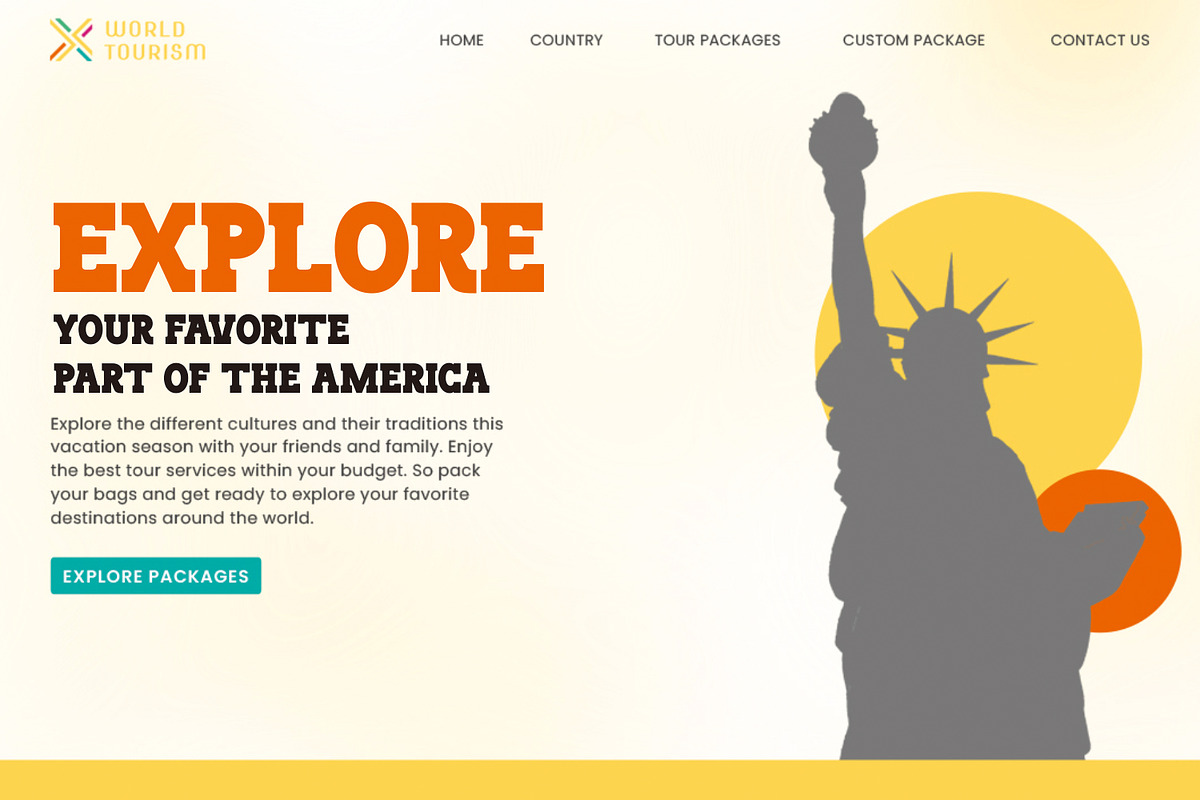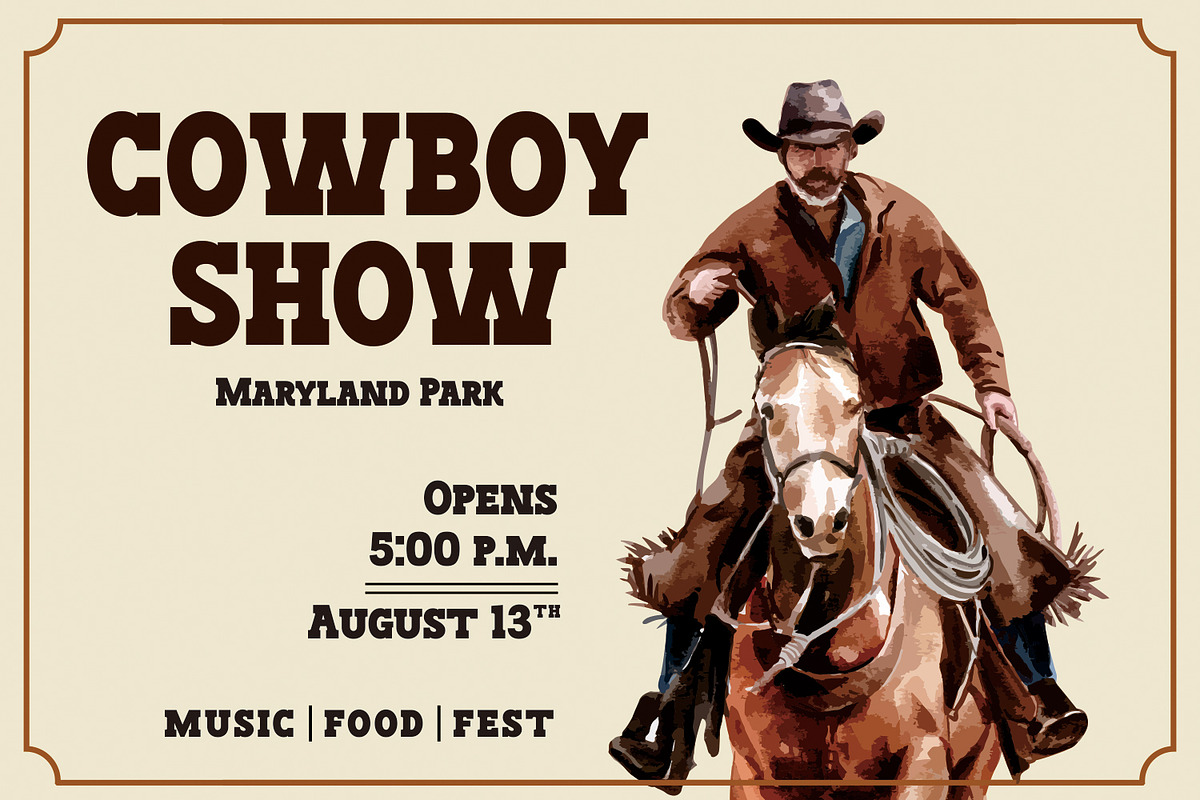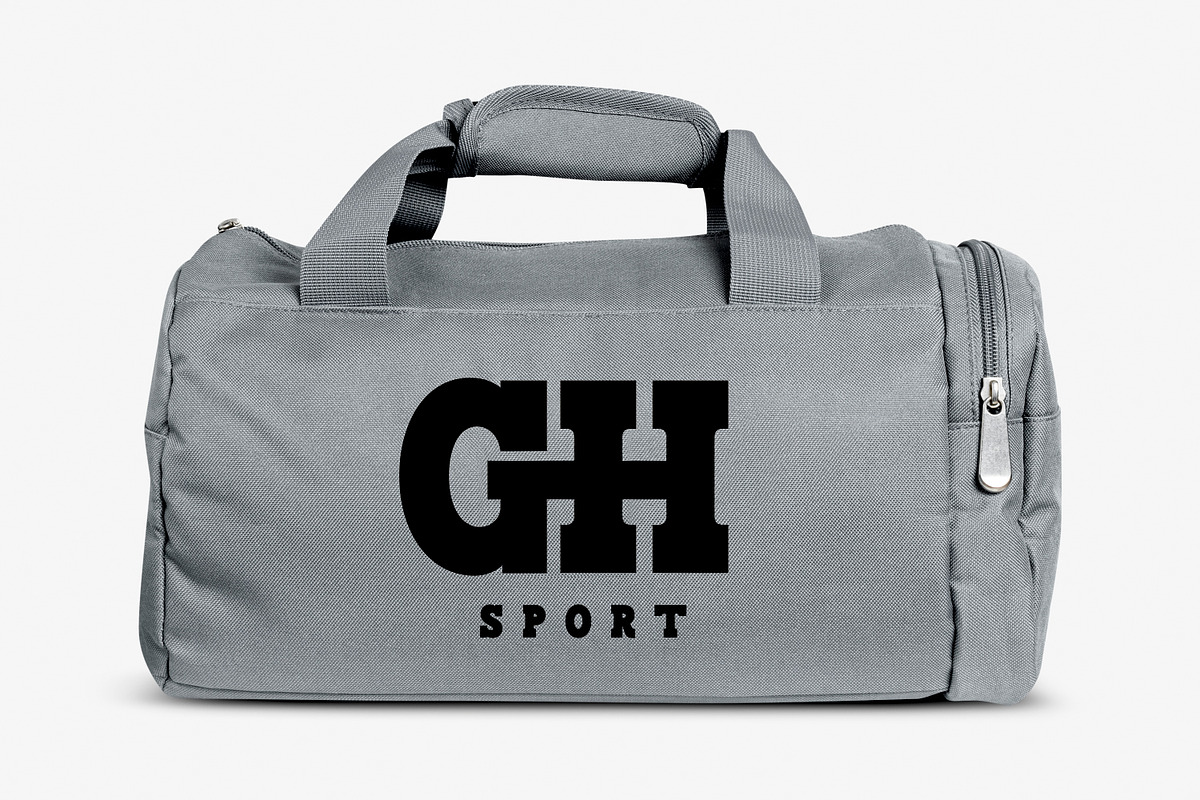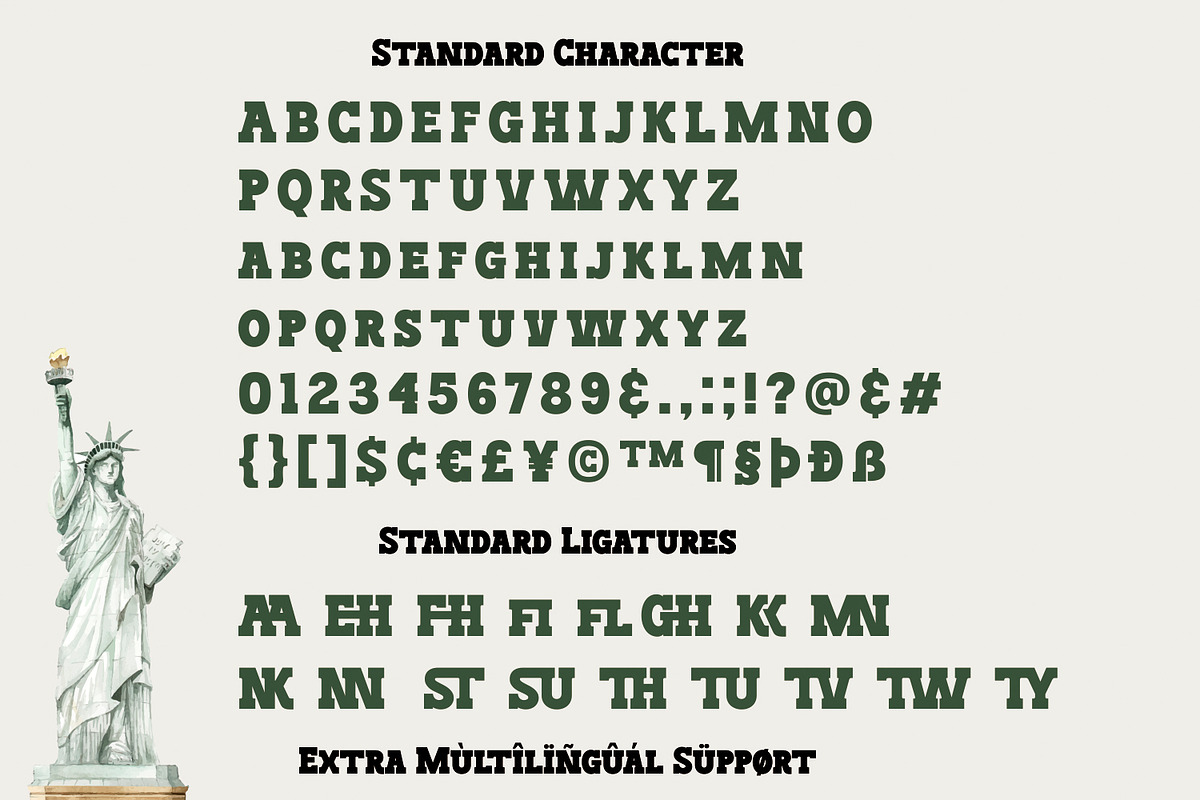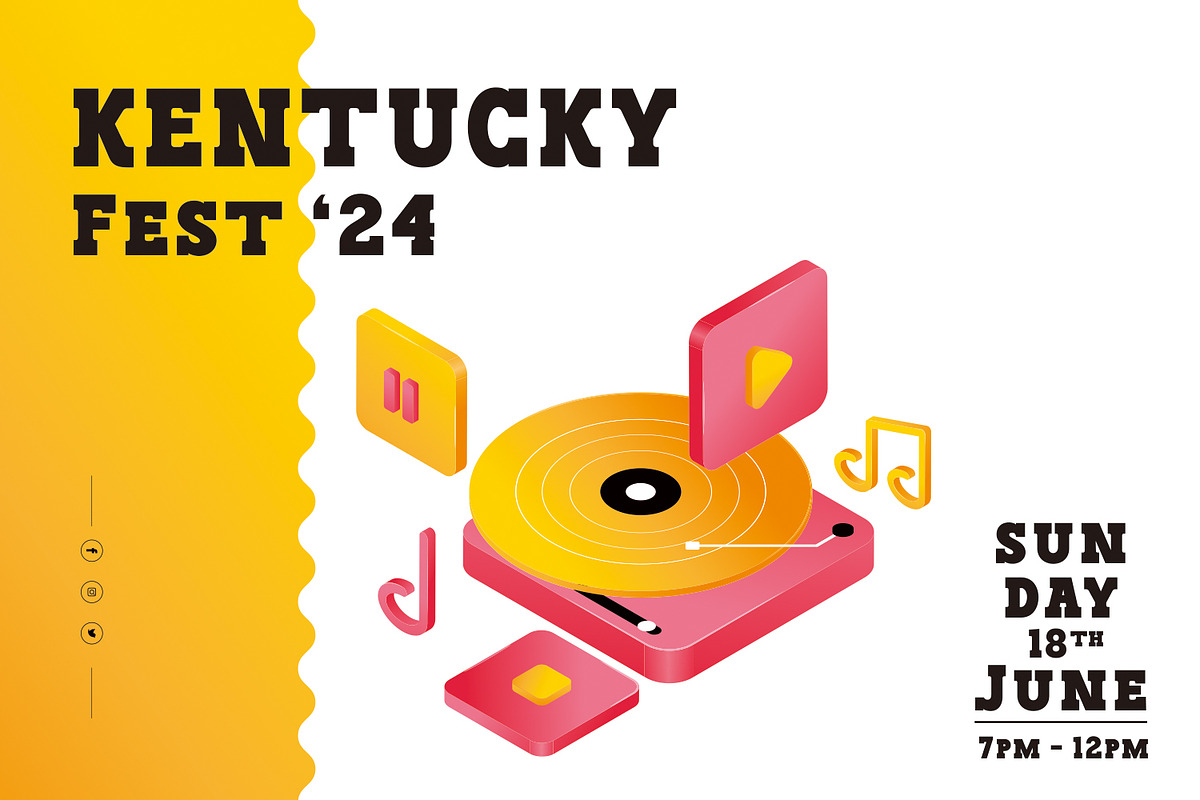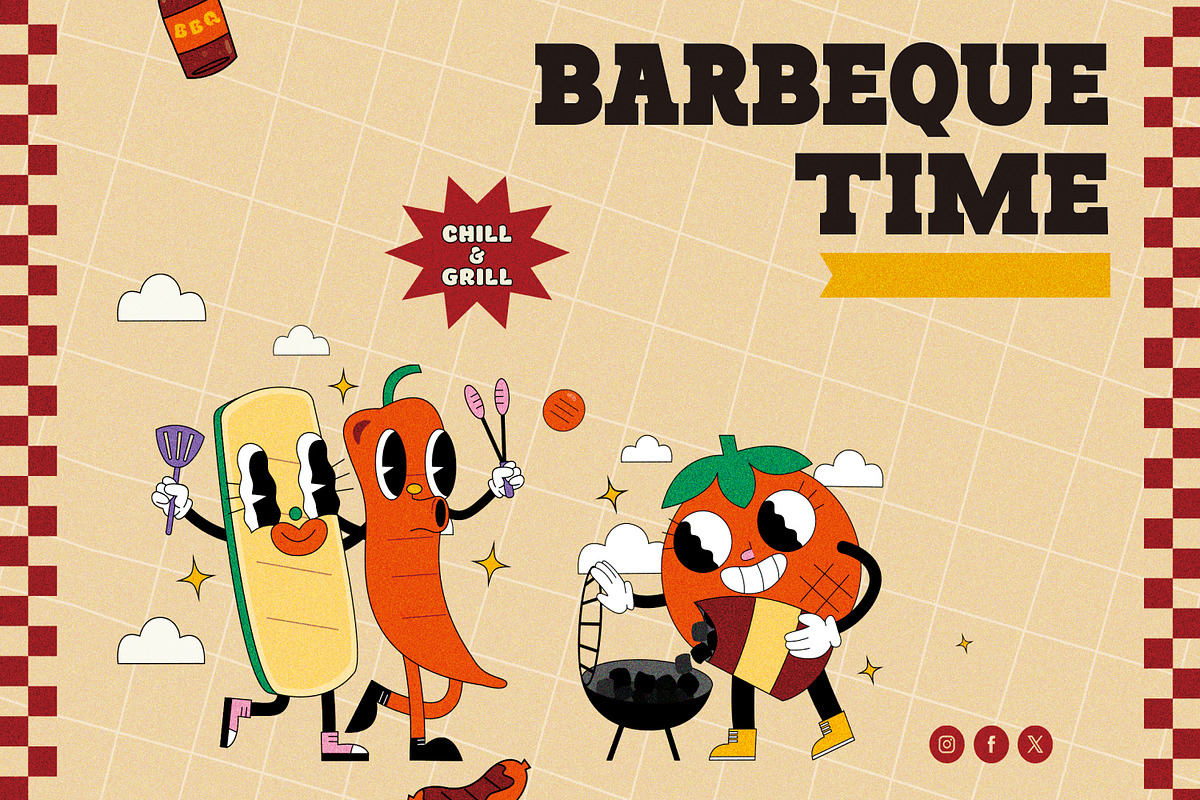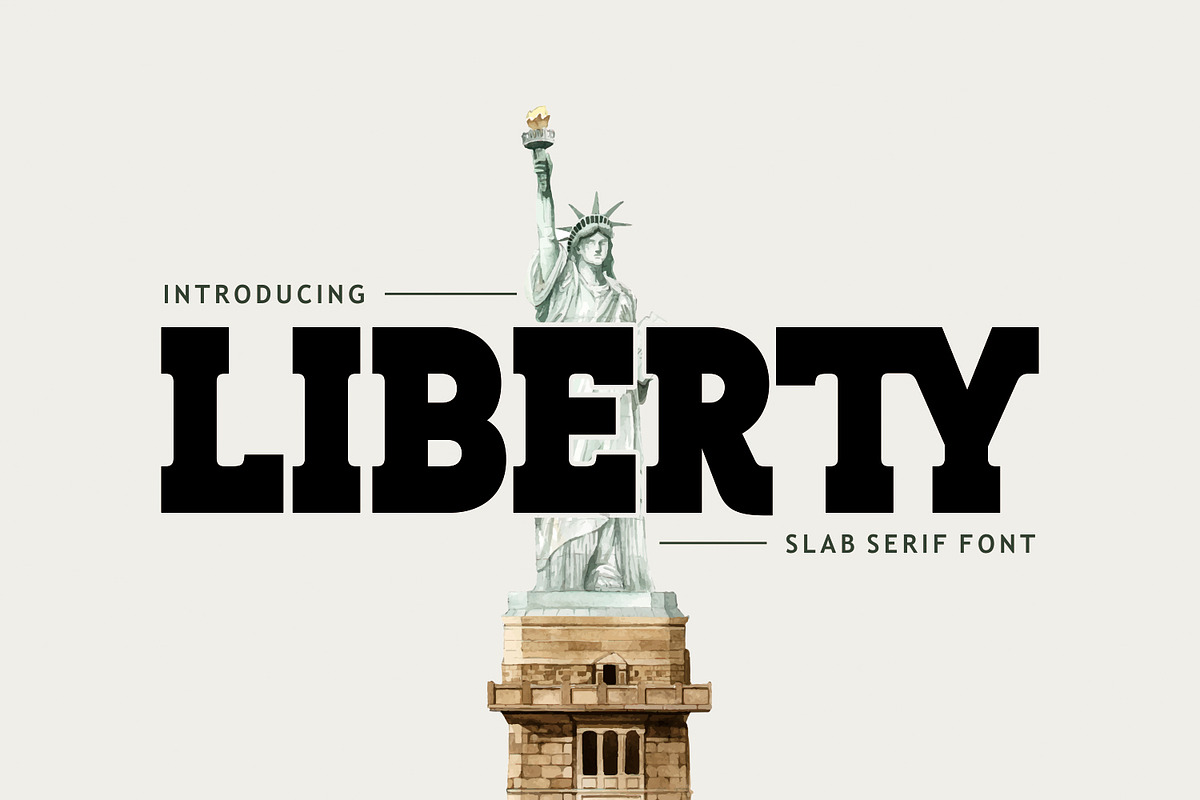
Liberty - Slab Serif
Introducing "LIBERTY" – a commanding slab serif font meticulously crafted to capture the essence of American freedom and patriotism. With its bold strokes and timeless appeal, "LIBERTY" is the perfect choice for commemorating USA Independence Day, Military Day, and Veteran's Day. Whether you're crafting greeting cards, adorning decorations, or embellishing craft lettering and embroidery projects, this font lends an air of dignity and reverence to your designs.
Harness the power of "LIBERTY" to infuse your creations with the proud spirit of liberty and honor. Its strong, yet elegant aesthetic serves as a fitting tribute to those who have bravely served their country. Let your projects stand as a testament to the sacrifices made for freedom and inspire others to celebrate and cherish the values that define the American spirit. Seize the opportunity to elevate your designs and join us in honoring the heroes who safeguard our liberties.
Celebrate freedom and honor with "LIBERTY" – a bold slab serif font designed to embody the spirit of independence. Perfect for commemorating USA Independence Day, Military Day, Veteran's Day, and more, this versatile font adds a touch of patriotism to crafts, greeting cards, decorations, and craft lettering projects. Let "LIBERTY" inspire your creations and pay tribute to the brave. Get your copy of "LIBERTY" today and make your mark with style and distinction.